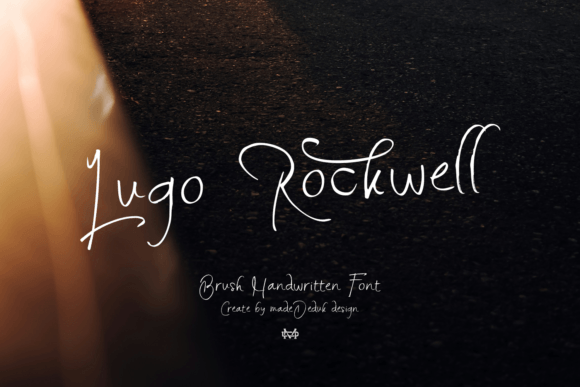
Lugo Rockwell Font Download Premium Font : Looking to add a dose of bold vintage character and handcrafted charm to your designs? Meet Lugo Rockwell Font — a brushed vintage handwritten font designed to make every project feel authentic, artistic, and full of personality.
Whether you’re crafting a logo, branding a coffee shop, designing t-shirt graphics, or creating striking social media posts, Lugo Rockwell brings a unique balance of rugged texture and handmade warmth. Built with an eye for detail, it comes with an impressive set of ligatures and alternates, so your text looks as real and organic as hand-brushed lettering on an old signboard.
What Makes Lugo Rockwell Font Special?
🖌 Authentic Brushed Look
Every letter feels hand-painted with textured brush strokes, giving designs a raw, handcrafted appeal.
✨ Vintage Soul
Inspired by classic sign painting and retro posters, Lugo Rockwell adds nostalgia and personality.
✏ Realistic Ligatures & Alternates
Includes plenty of ligatures and stylistic alternatives, letting you build words that look unique and custom-made.
🌟 Handmade Warmth
Adds depth, human touch, and a slightly imperfect charm that digital fonts often lack.
⚡ Versatility Meets Character
Bold enough for headlines, yet casual enough for branding that wants to feel approachable.
Best Uses for Lugo Rockwell Font
Because it balances handcrafted texture with bold vintage style, Lugo Rockwell works beautifully across a wide range of creative projects:
✅ Logos & Branding – Especially for cafes, vintage clothing, barbershops, craft breweries, or artisan shops.
✅ Product Packaging – Rustic food labels, candle boxes, organic skincare packaging.
✅ Posters & Signage – Event flyers, music festival posters, or promotional banners.
✅ T-Shirt & Merchandise Design – Hand-lettered look that feels authentic and stylish.
✅ Social Media Graphics – Bold headlines, Instagram story covers, or highlight icons.
✅ Quotes & Prints – Wall art, greeting cards, or personal prints with a handmade vibe.
Why Designers Love Lugo Rockwell Font
🎨 Adds Personality: Transforms ordinary words into eye-catching headlines or logos.
🧩 Creative Freedom: With ligatures and alternates, you can customize text to feel truly handmade.
✨ Vintage, Yet Fresh: Timeless retro vibe that still feels modern in branding and digital design.
📐 Versatile: Pairs beautifully with minimalist sans-serifs or classic serifs for balance.
🖌 Feels Real: Brush strokes and imperfect edges add an authentic, handcrafted quality.
Tips for Designing with Lugo Rockwell Font
✅ Play with Alternates: Mix different ligatures to make your text feel organic and custom-made.
🖼 Use Large Sizes: The texture and brush details look best in big headlines, signs, or logos.
🎨 Layer Effects: Try adding subtle shadows, textures, or vintage overlays for an old-school sign effect.
🧩 Pair Thoughtfully: Match with clean sans-serifs like Montserrat or geometric fonts for modern contrast.
🌿 Keep it Natural: Avoid over-polishing; let the brush texture speak for itself.
🍻 Craft Beer Label: “Old Town Lager” styled in Lugo Rockwell with rustic colors.
🎵 Music Festival Poster: Vintage-inspired lettering combined with retro illustrations.
👕 T-Shirt Quote: Bold phrase like “Stay Wild” or “Adventure Awaits.”
Q5: What design style suits this font?
Vintage, rustic, retro, handmade, and creative branding projects.
Final Thoughts: Bring Vintage Handcrafted Charm to Your Designs
Lugo Rockwell Font isn’t just a font; it’s a tool to create designs that feel authentic, bold, and full of life. With its brushed texture, vintage roots, and creative ligatures, it helps transform simple words into art.